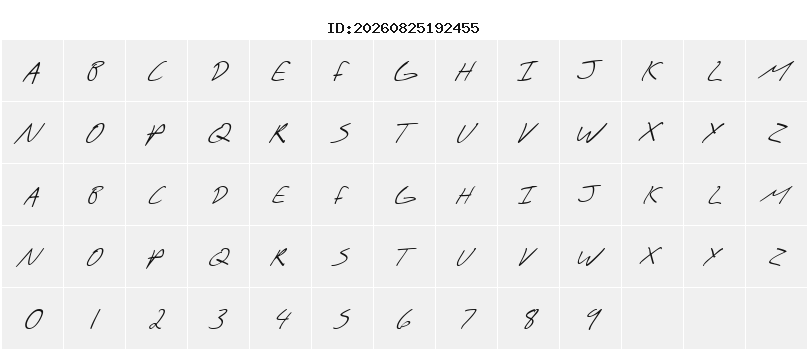
SF Scribbled Sans SC Preview
• Font Name: SF Scribbled Sans SC
About SF Scribbled Sans SC.ttf
SF Scribbled Sans SC.ttf is a modern, elegant sans-serif font designed for ultimate readability and visual harmony. Perfect for branding, headlines, web design, and print materials.